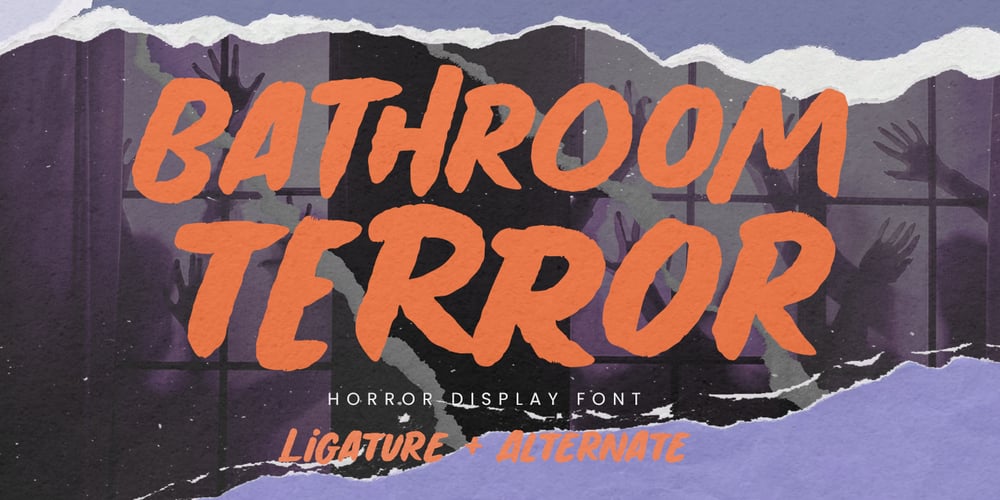
Bathroom Terror Font Family was designed by Abdul Malik Wisnu, Anang Fibriyanto and published by Gassstype. Bathroom Terror contains 1 styles and family package options. Hello Everyone, introduce our new product Font Bathroom Terror This Is Horror Display Font.This is a Textured Natural Style and classy style with a clear style and dramatic movement.You can activate 5 Ligatures and 8 Alternate glyphs OpenType panel.